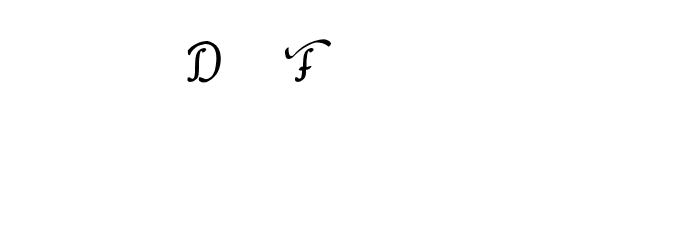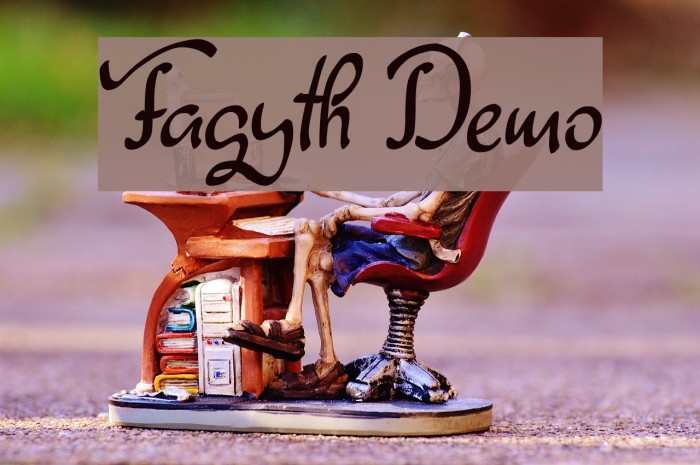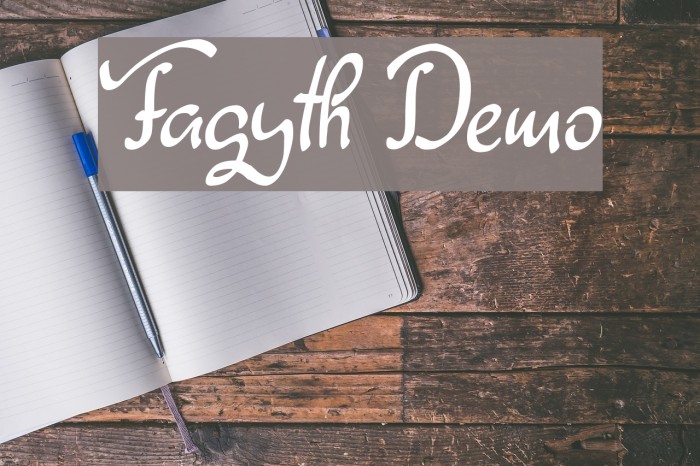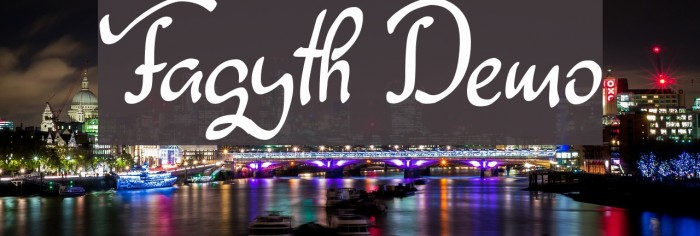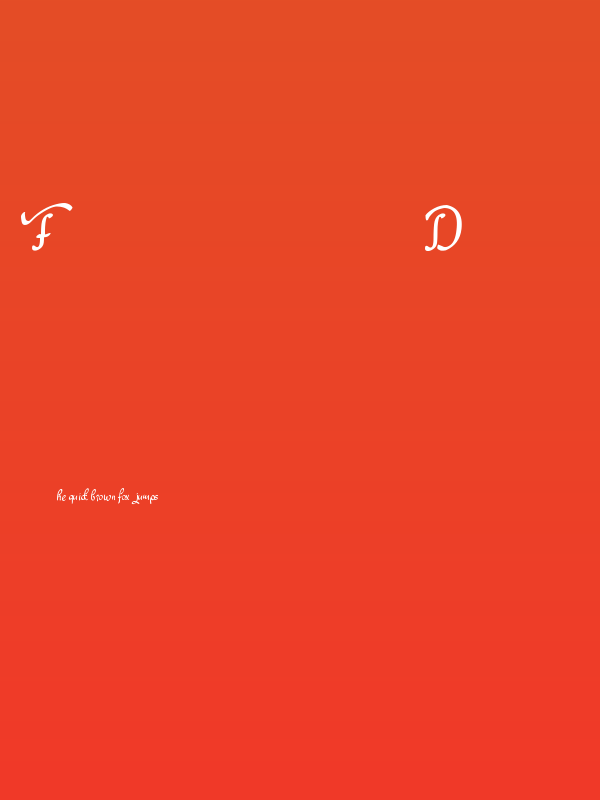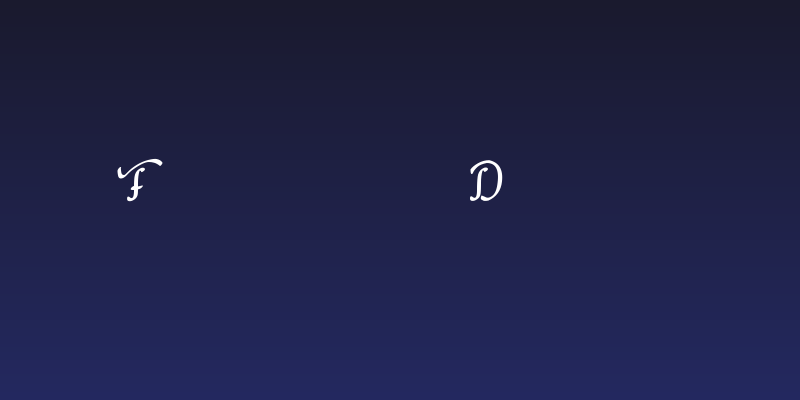
Fagyth Demo Font
Fagyth Demo Description
This font features a distinctive handwritten style with elegant, flowing curves and a slightly whimsical appearance. The uppercase letters are bold and prominent, while the lowercase letters maintain a consistent fluidity, giving the font a cohesive look. The strokes vary in thickness, adding a dynamic quality to the text. The overall design is reminiscent of calligraphy, with a modern twist that makes it suitable for a variety of creative applications. The characters are well-spaced, ensuring readability while maintaining an artistic flair. This font is particularly effective for projects that require a personal touch or a sense of elegance and sophistication.
| Proposed Projects | Ideal for wedding invitations, greeting cards, personal branding, and artistic projects. |